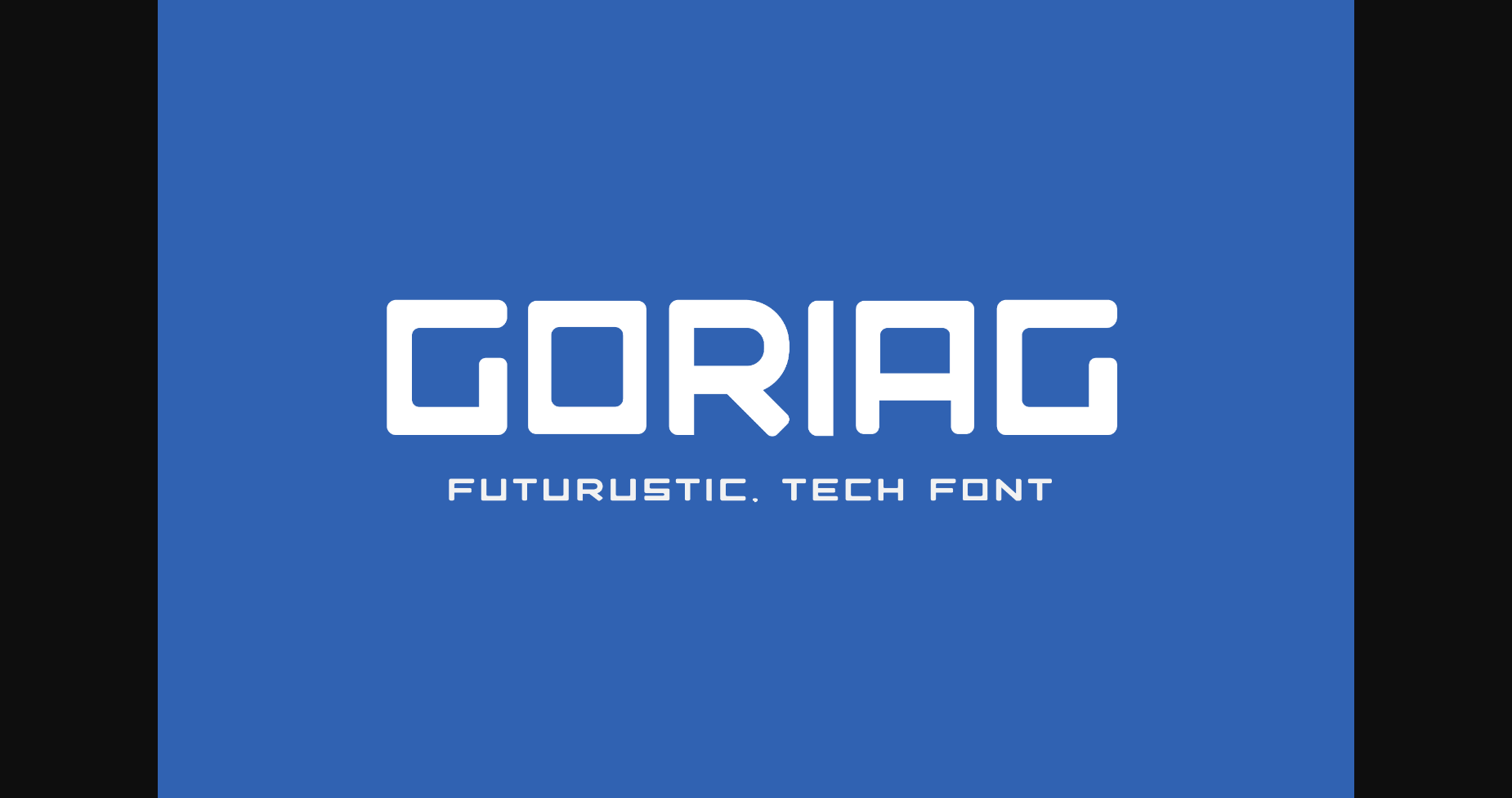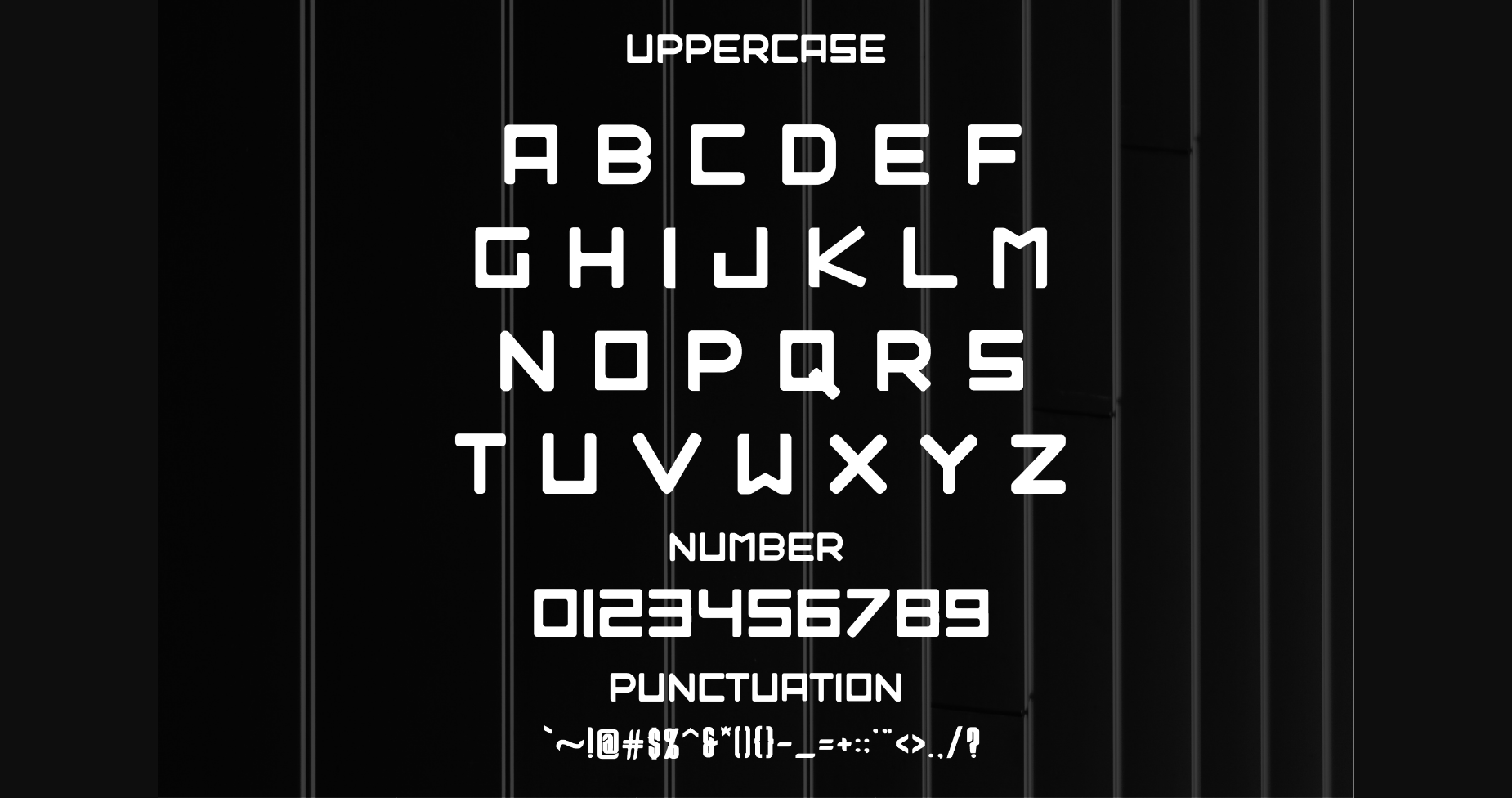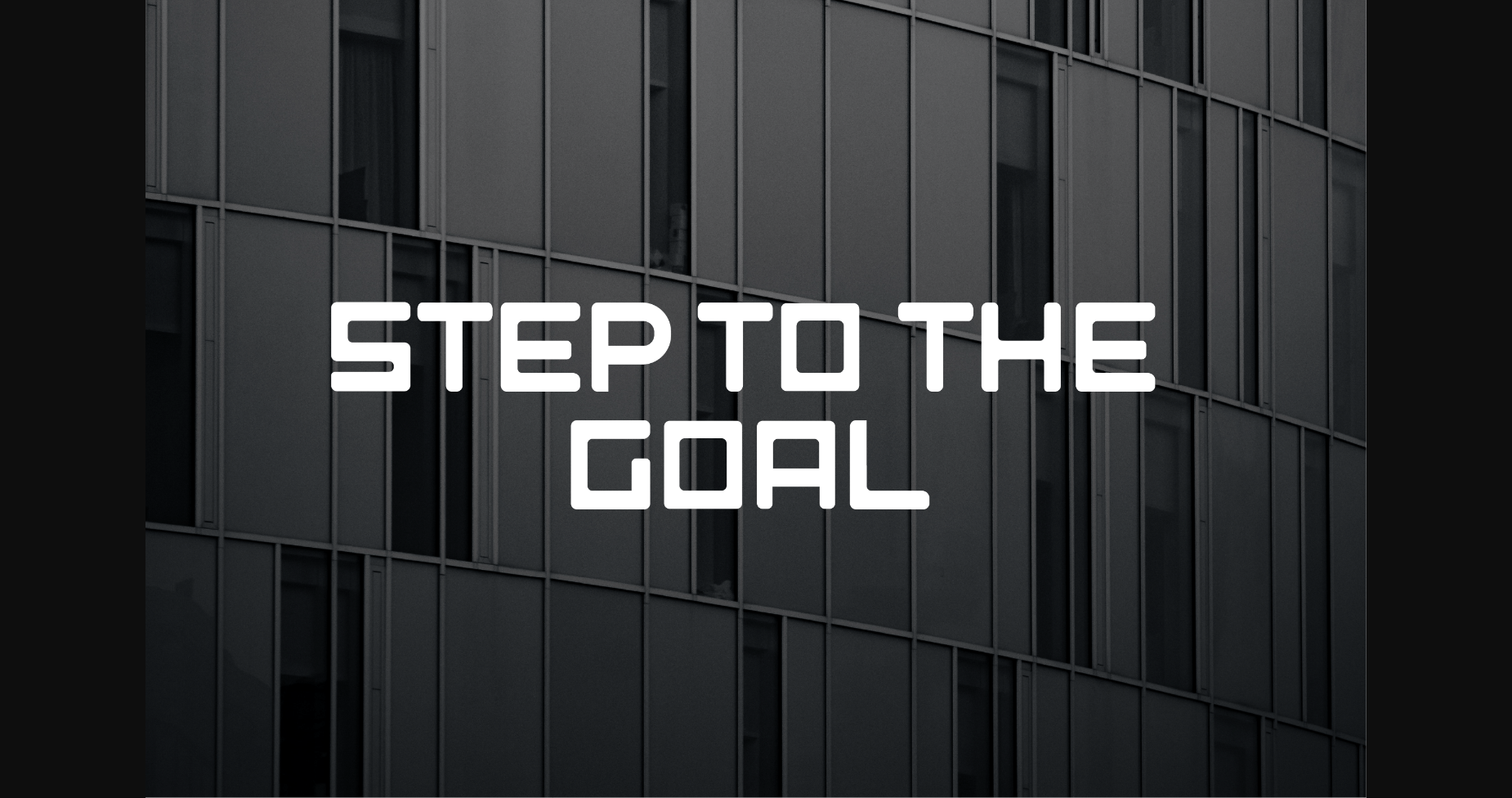
This font is really cool and suitable for technology and sports, with a sans serif style it is strong, powerful, and very useful for branding, logo, poster, tagline, magazine illustrations, etc.